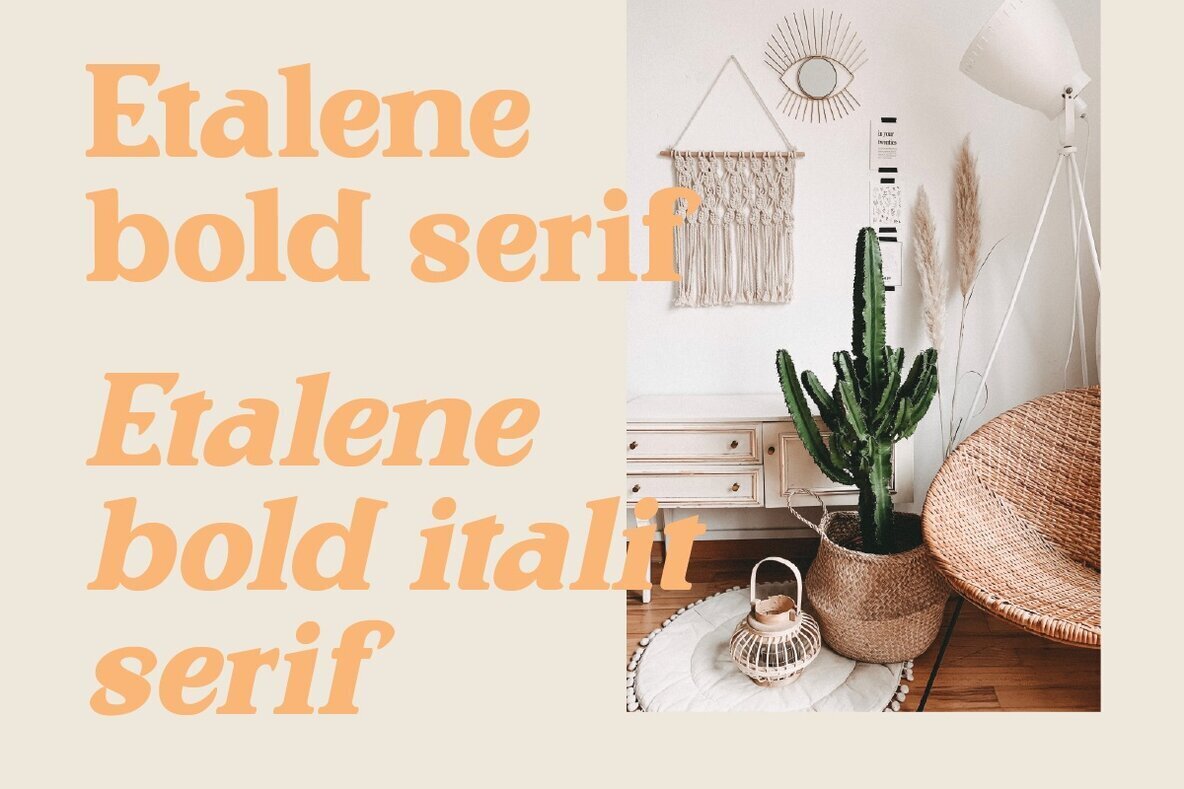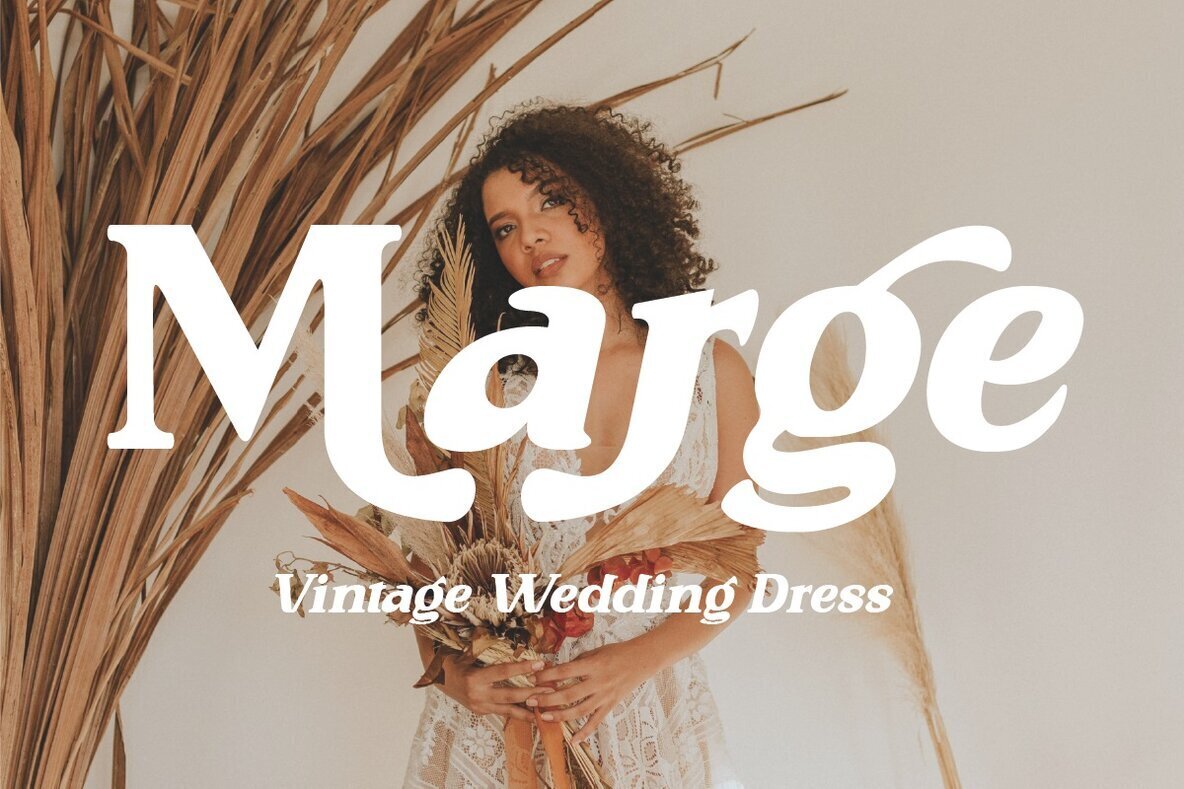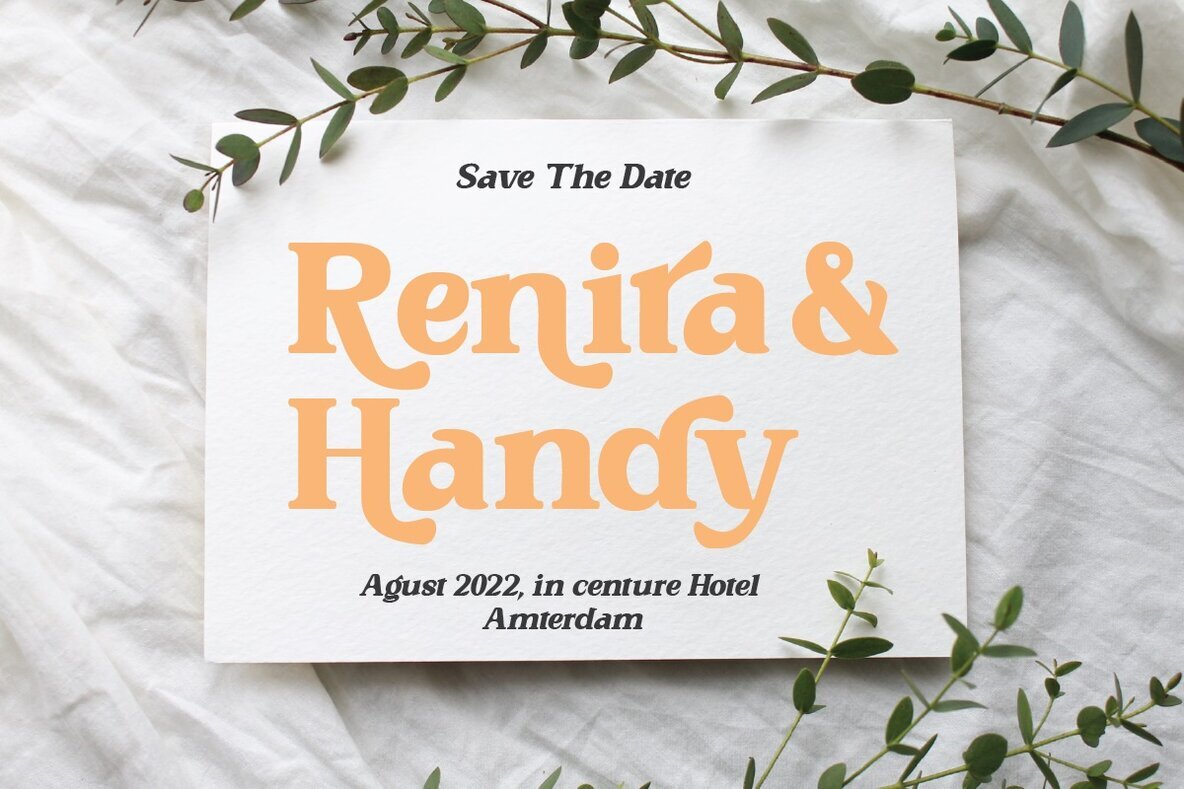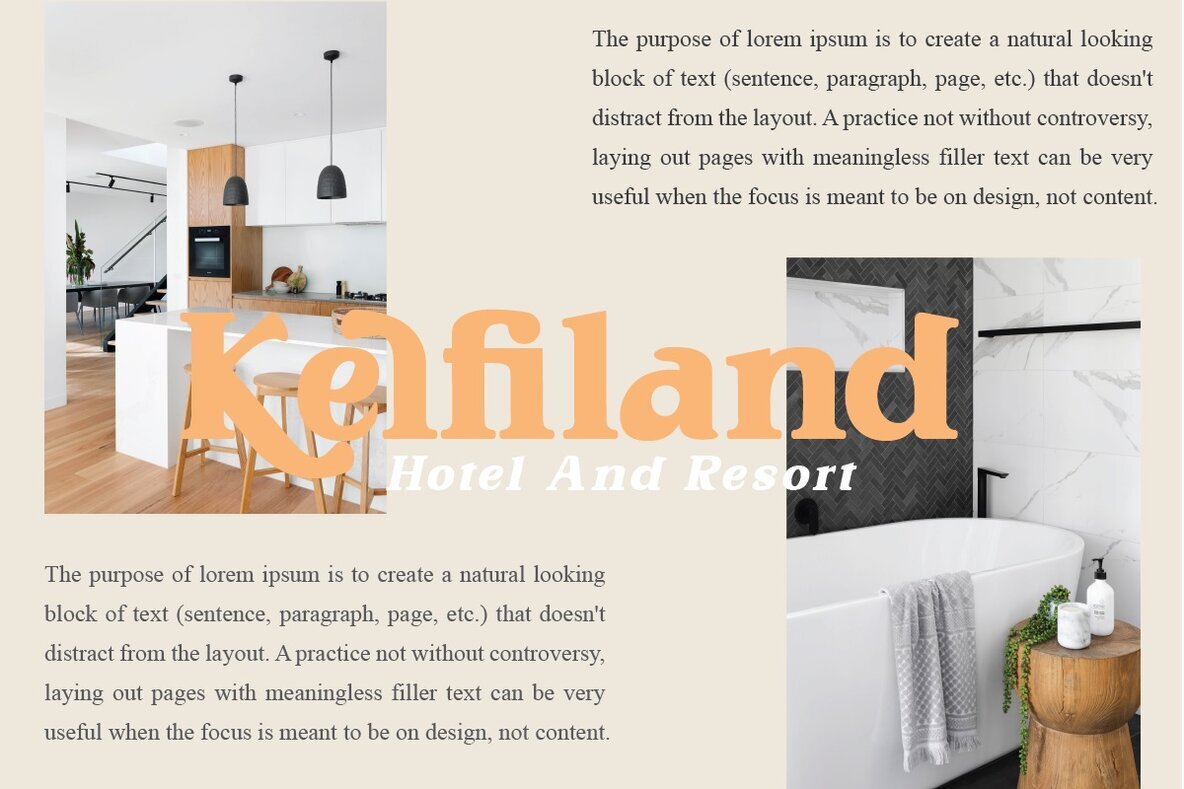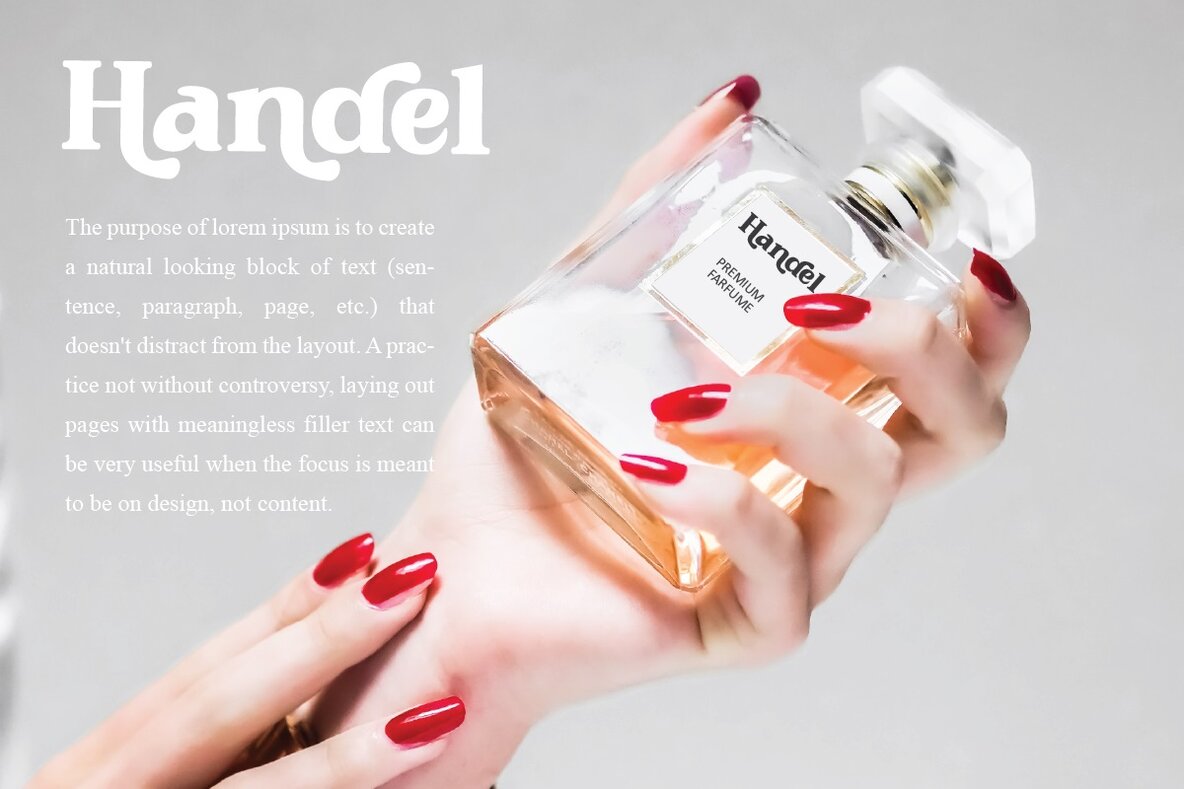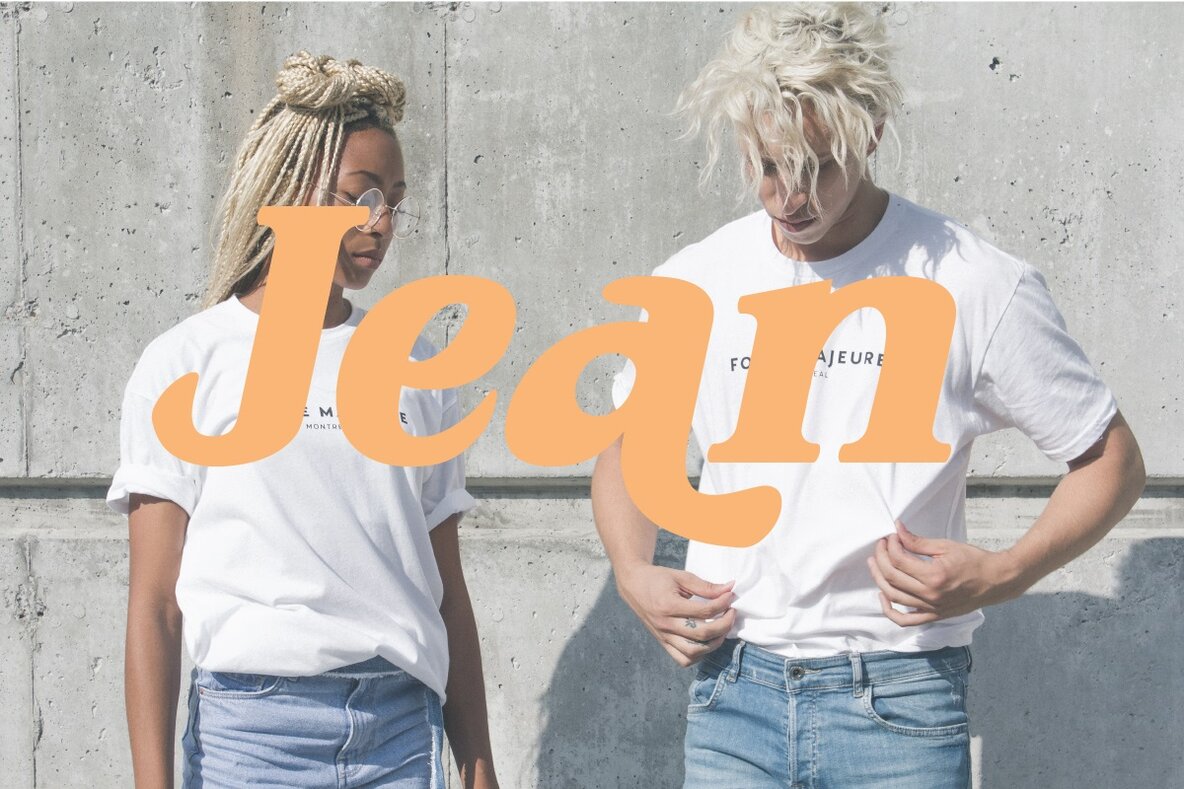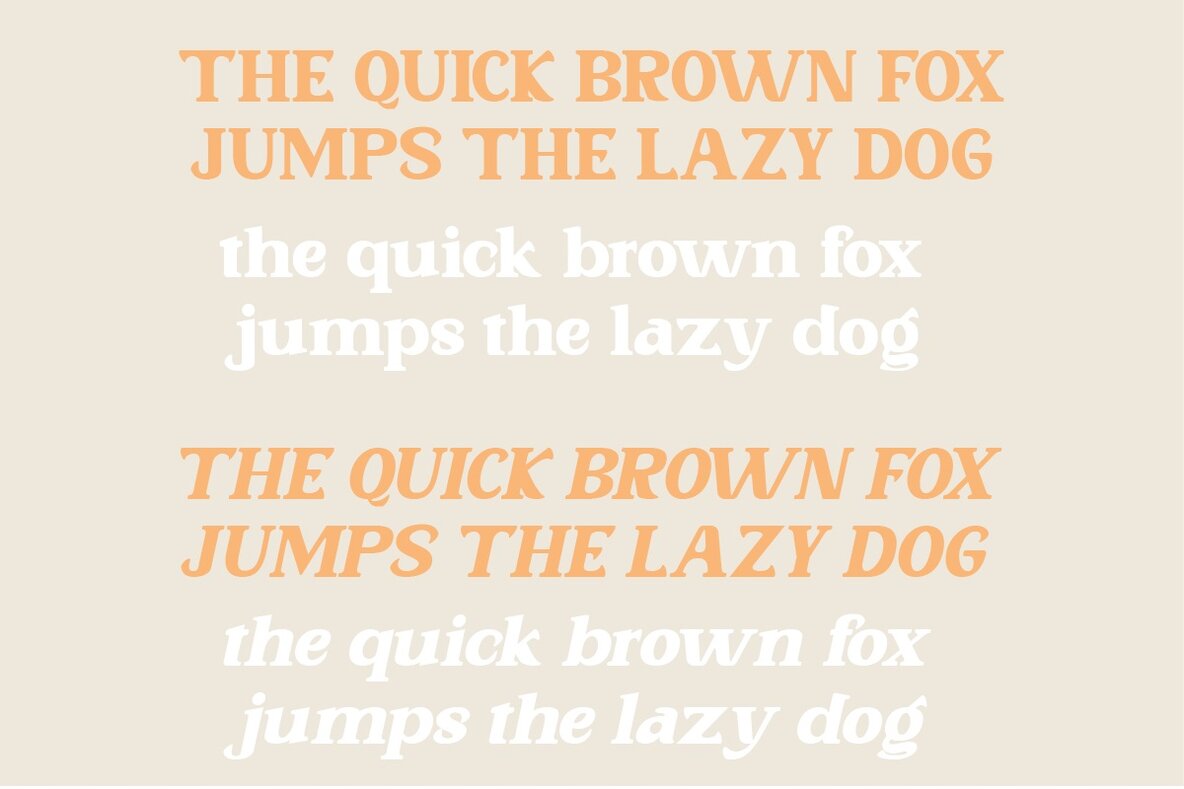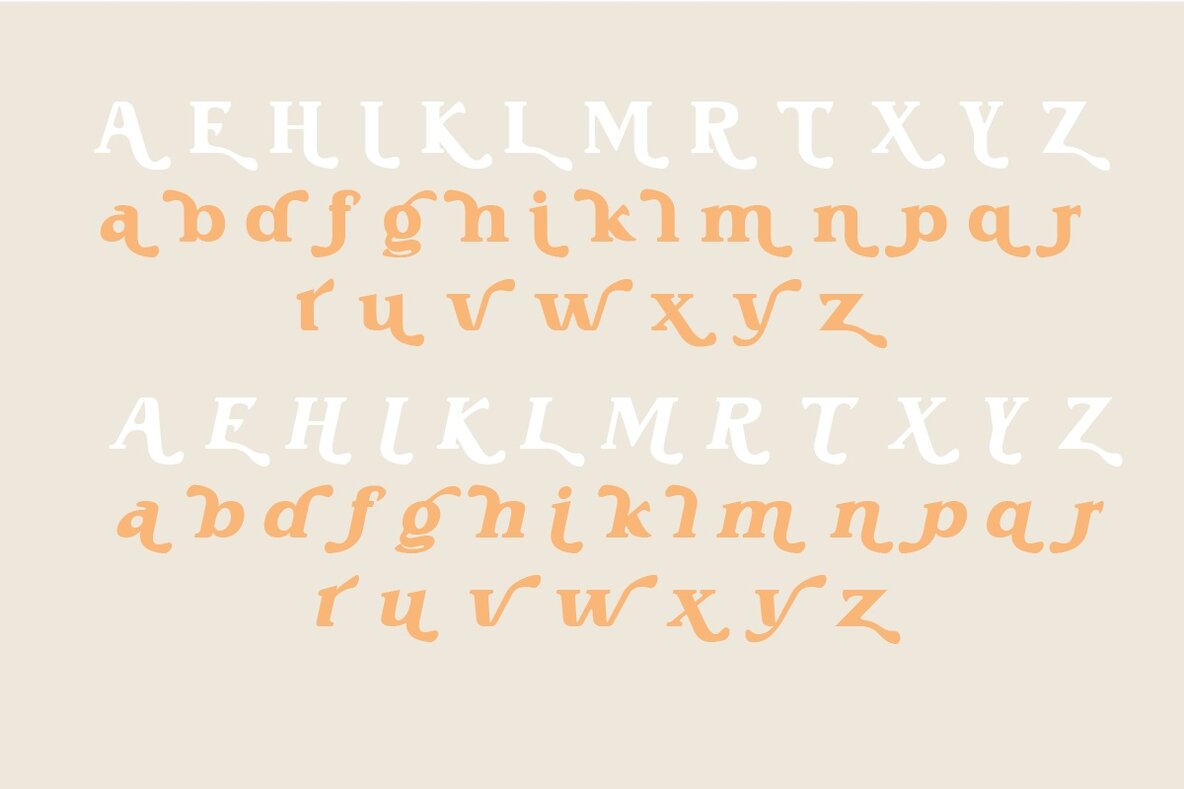
Etalene Font
Etalene by Muksal Creative introduces a modern bold serif option that seamlessly melds style and utility. Its graceful ligatures and distinctive glyphs enhance any design, while the multilingual support ensures versatility across projects. Ideal for both large and compact displays, Etalene thrives in editorial work, logo design, and product packaging. Whether crafting magazine headers or elegant text overlays, Etalene offers a compelling choice for creative professionals.Etalene: The Modern Bold Serif Typeface